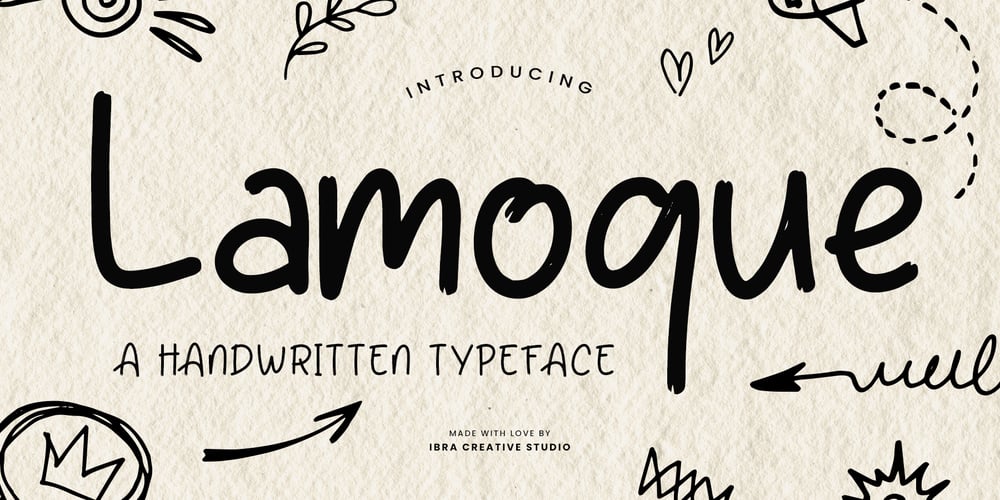
Lamoque Font Family was designed by Roisatul Azizah and published by IbraCreative. Lamoque contains 1 styles and family package options. Lamoque – A Handwritten TypefaceLamoque is a charming handwritten typeface that exudes warmth and personality with every stroke. Its flowing lines and organic shapes evoke the feeling of handwritten notes, adding a touch of authenticity and intimacy to any design. The irregularities in letterforms give Lamoque a natural and human touch, as if each character was carefully penned by hand. Its casual yet elegant appearance makes it versatile for a wide range of applications, from invitations and greeting cards to branding and packaging. Lamoque invites readers to connect on a personal level, conveying a sense of sincerity and warmth that resonates with its handwritten charm. Lamoque is perfect for branding projects, logo, wedding designs, social media posts, advertisements, product packaging, product designs, label, photography, watermark, invitation, stationery, game, fashion and any projects.Fonts include multilingual support for; Afrikaans, Albanian, Czech, Danish, Dutch, English, Estonian, Finnish, French, German, Hungarian, Italian, Latvian, Lithuanian, Norwegian, Polish, Portuguese, Slovak, Slovenian, Spanish, Swedish.